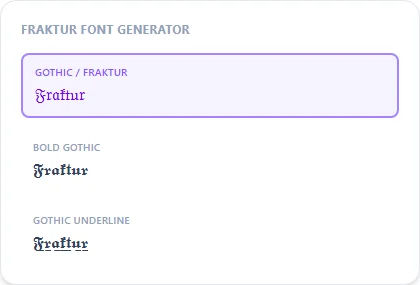
Fraktur Font Generator
Fraktur is its own dedicated Unicode block (part of Mathematical Alphanumeric Symbols), so unlike some of the styles on this site, this one is a genuine one-to-one character substitution rather than an approximation.
Bold Fraktur is heavier and more traditional-looking; plain Fraktur is lighter and easier to read at length.
Fraktur Font Generator style examples: Gothic / Fraktur, Bold Gothic, Gothic Underline, rendered on the word "Fraktur"
A real Unicode block, not an approximation
Most styles on this site work by finding the closest visual stand-in for a look Unicode doesn't have an exact character for. Fraktur is an exception: the Unicode Standard defines a dedicated Mathematical Fraktur block with a genuine one-to-one letter for letter mapping, the same block German-language typesetting historically used for blackletter print. That's why this style reproduces cleanly and consistently across every device.
Fraktur vs. Bold Fraktur
Regular Fraktur has thinner, more ornate strokes that read well in longer passages. Bold Fraktur is heavier and holds up better at small sizes — the more common pick for usernames, tattoo previews, and logo mockups.
Does this support numbers?
No, the Fraktur Unicode block only defines letters, not digits, so numbers in your text will stay in the plain style. This is a Unicode limitation shared by every Fraktur generator, not something specific to this tool.
Is Fraktur the same thing as Gothic script?
Fraktur is a specific historical typeface style within the broader blackletter/gothic family — in casual use today the terms are treated as interchangeable, and this generator's styles work for either search.
Can I use Fraktur for a logo mockup?
As a quick text preview, yes — for a final printed or digital logo you'd still want a designer to hand-adjust spacing and weight for the specific use case.